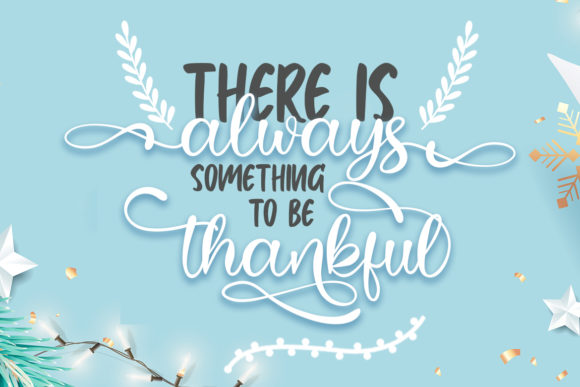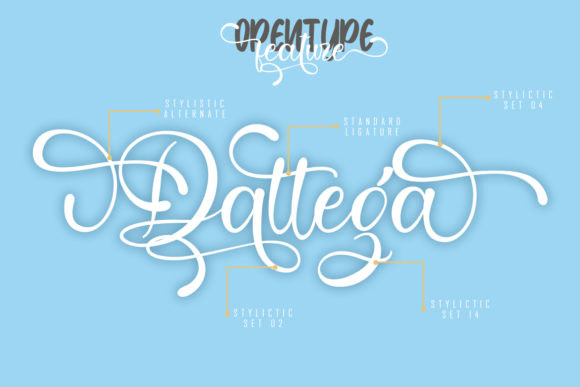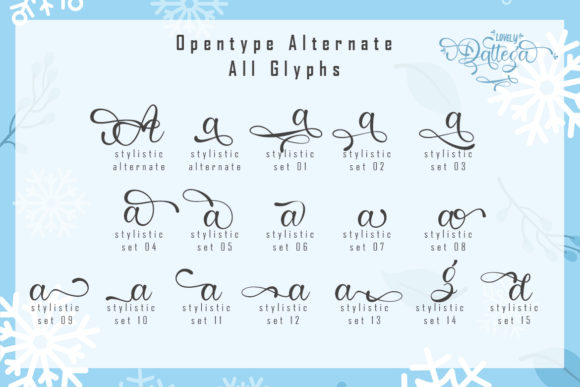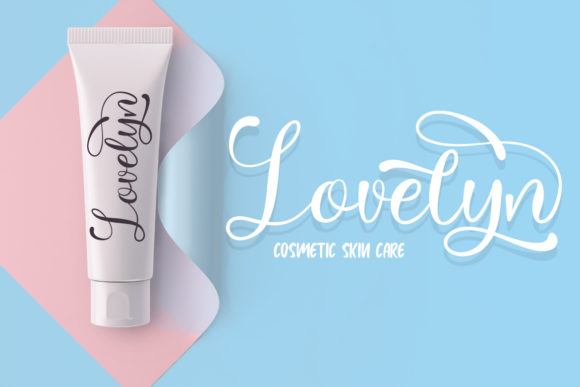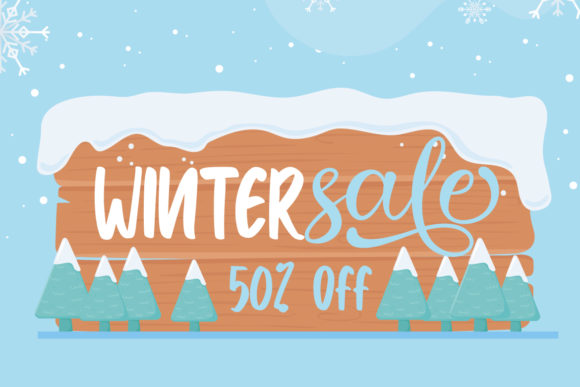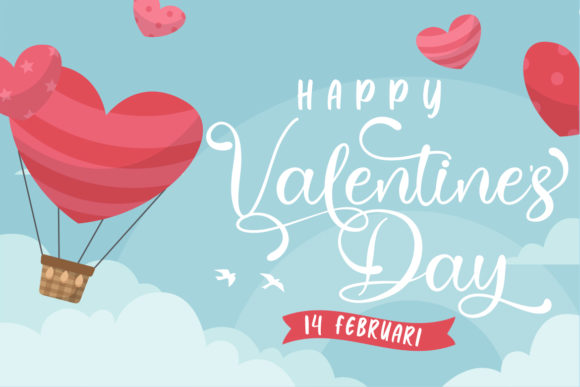
Introduction to Lovely Dattega Font
As designers, we’ve all been there – staring at a blank canvas, trying to bring our creative vision to life. But sometimes, all it takes is the right design resource to spark that magic. For me, it was the discovery of the Lovely Dattega Font, a sweet duo font that has revolutionized the way I approach design projects.
With its incredibly versatile script and sans combinations, the Lovely Dattega Font is the ultimate game-changer for any creative project. Whether you’re working on a high-quality logo, a beautiful invitation, or a stunning website, this font is sure to elevate your design to new heights. And the best part? It’s available for free download, complete with a transparent background, making it easy to integrate into your next project.
For designers, the Lovely Dattega Font is a valuable addition to any toolkit. Its unique blend of elegance and sophistication makes it perfect for a wide range of designs, from modern and sleek to vintage and whimsical. And with its free download option, you can start using it in your next creative project today.
Key Features of Lovely Dattega Font
- The Lovely Dattega Font is a high-quality design resource perfect for creative projects.
- The font features a transparent background, allowing for seamless integration with any design element.
- This elegant font comes in a single style with 12 weights, offering versatility for various design applications.
- Its unique characteristics make it an ideal choice for designers seeking a sophisticated and modern aesthetic for their creative project.
Honest Review: Lovely Dattega Font
I recently stumbled upon the Lovely Dattega Font, a design resource that’s been making waves in the creative community. As a designer, I was excited to dive in and see what it has to offer.
- What works well: ✨ The Lovely Dattega Font is a high-quality, free download that’s perfect for any creative project. Its clean and elegant design makes it an excellent choice for logos, headings, and body text.
- What works well: ✨ I also appreciate that the font has a transparent background, making it easy to use in conjunction with other design elements.
However, I do have to mention a few limitations: ⚠️ The Lovely Dattega Font is a script font, which can make it difficult to read at small font sizes. Additionally, it may not be the best choice for projects that require a more formal tone.
Overall, I’m impressed with the Lovely Dattega Font. Its unique design and high-quality feel make it a valuable addition to any designer’s toolkit. If you’re looking for a creative and stylish font for your next project, I’d definitely recommend giving it a try.
For best results, use the Lovely Dattega Font on a transparent background to give your design a clean and elegant look.
You can also experiment with different font sizes and styles to add visual interest to your design.
The Lovely Dattega Font is perfect for any creative project that requires a high-quality, elegant font.
It’s ideal for use in design resources such as logos, business cards, and brochures.